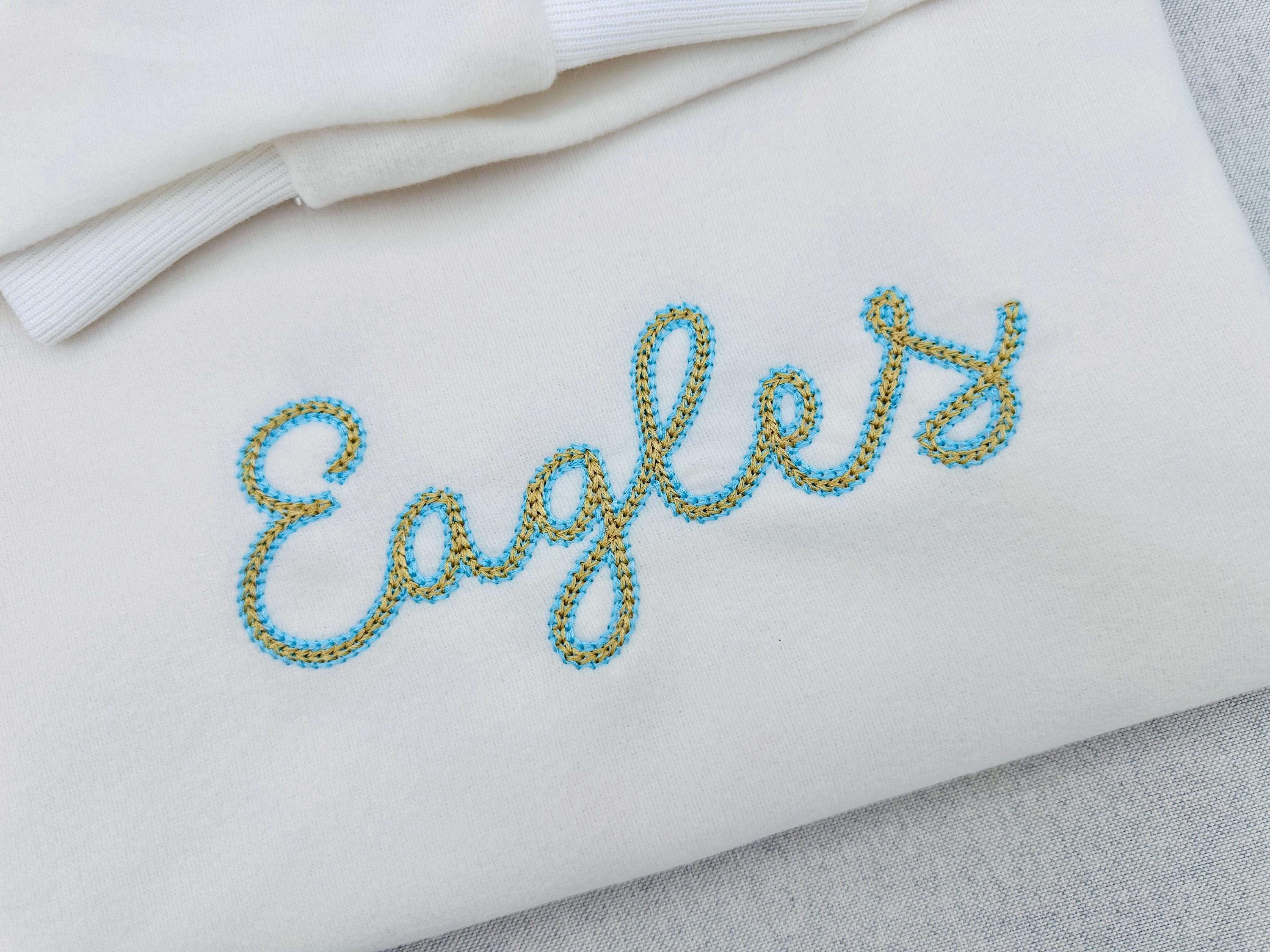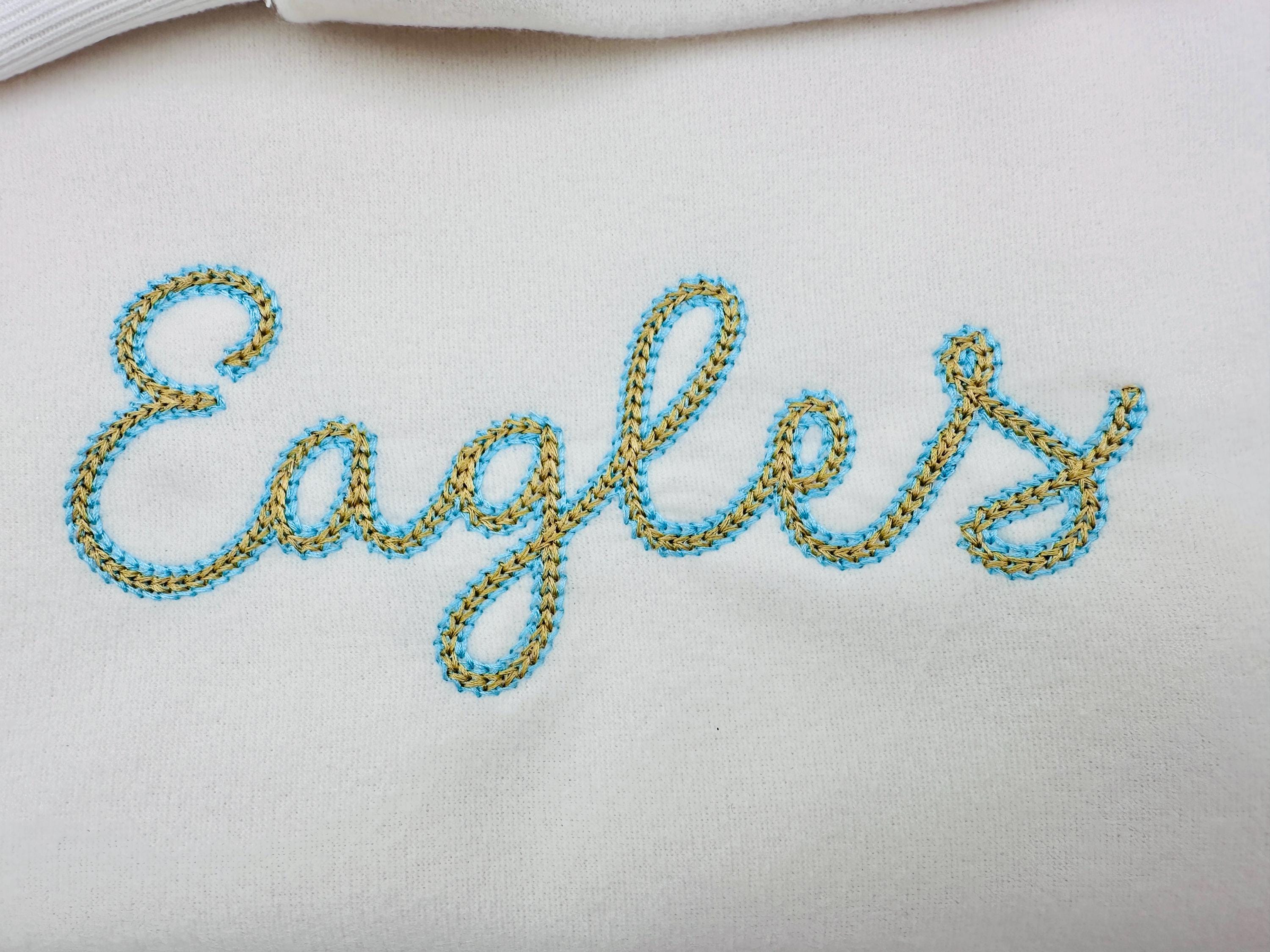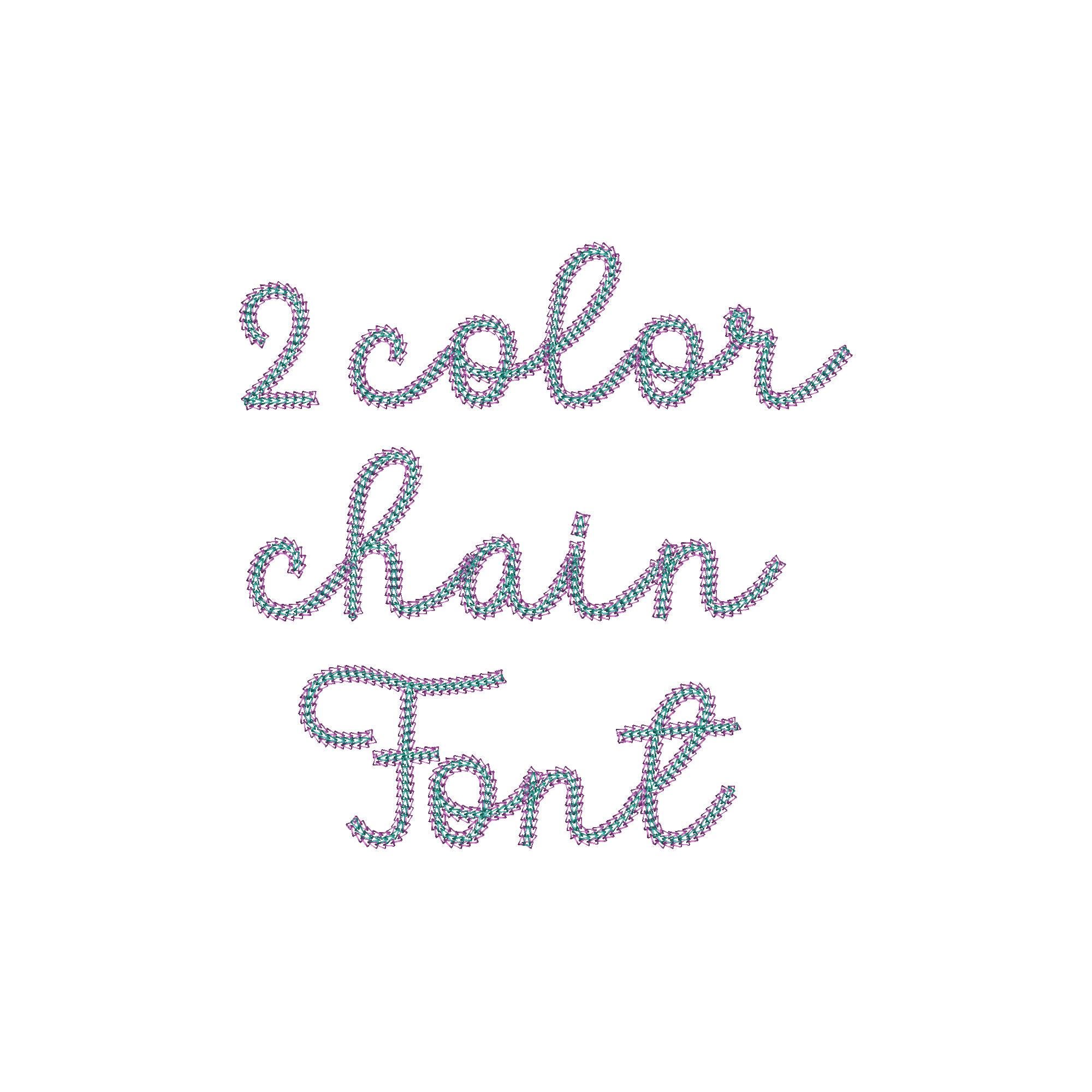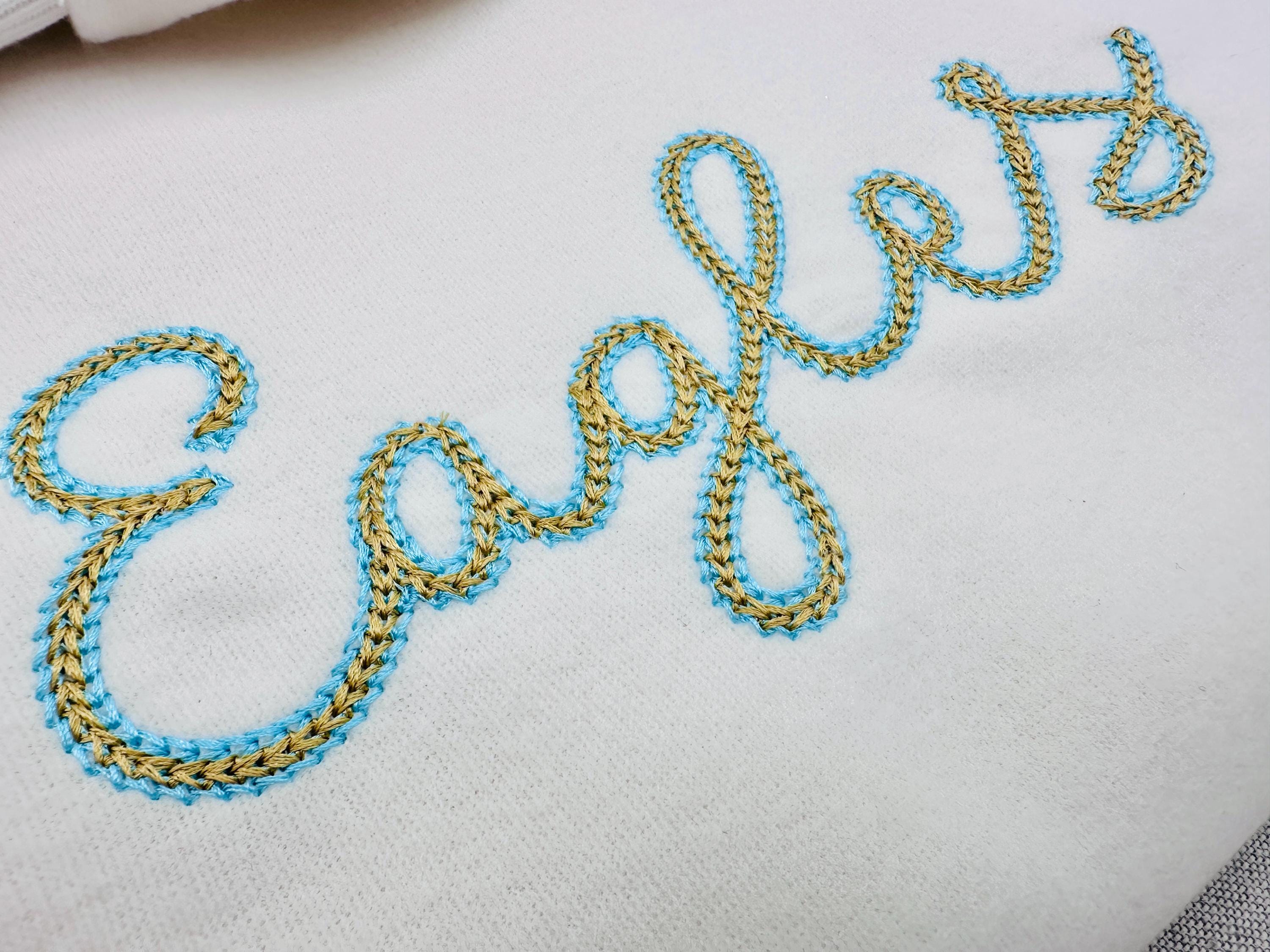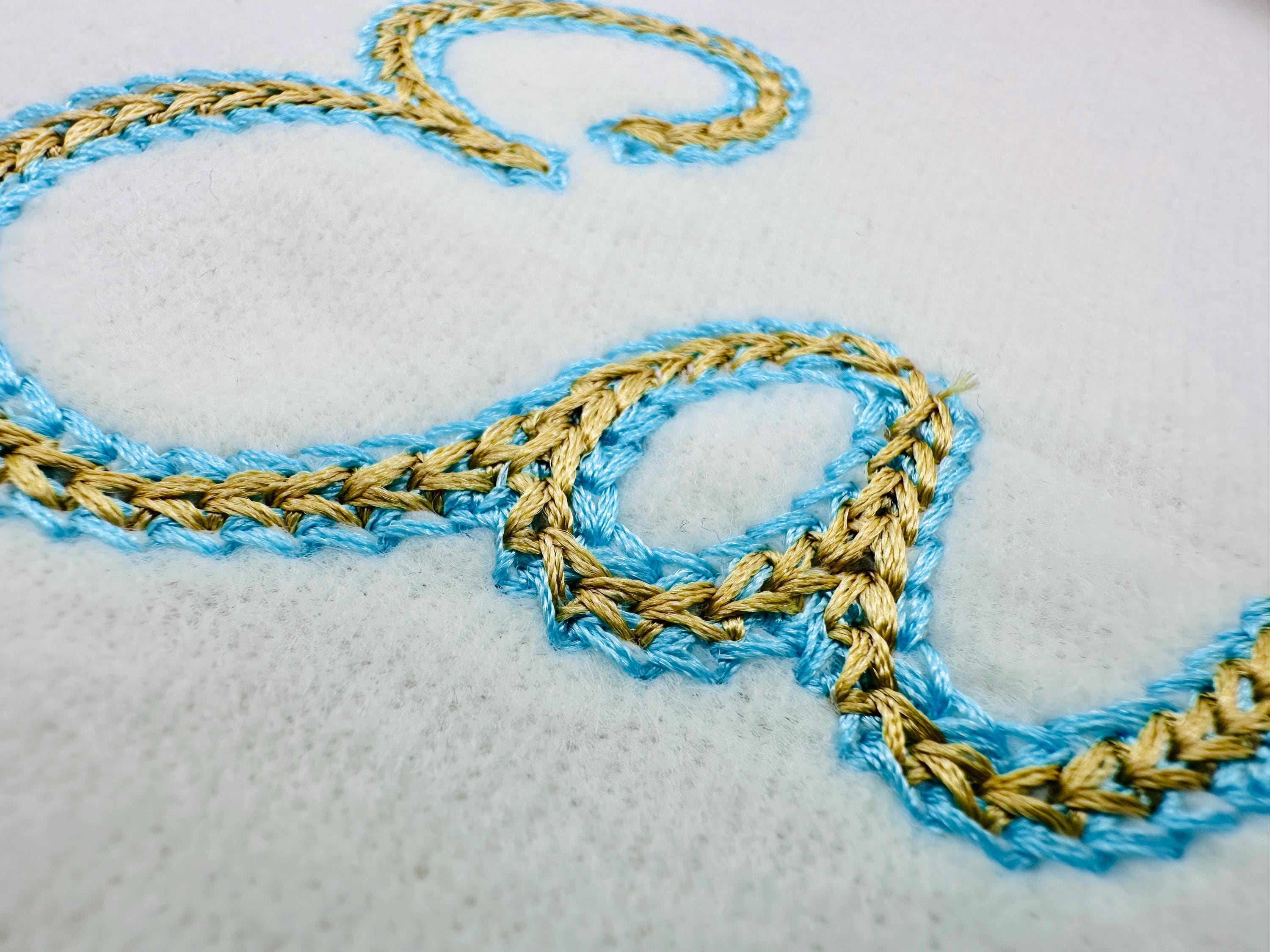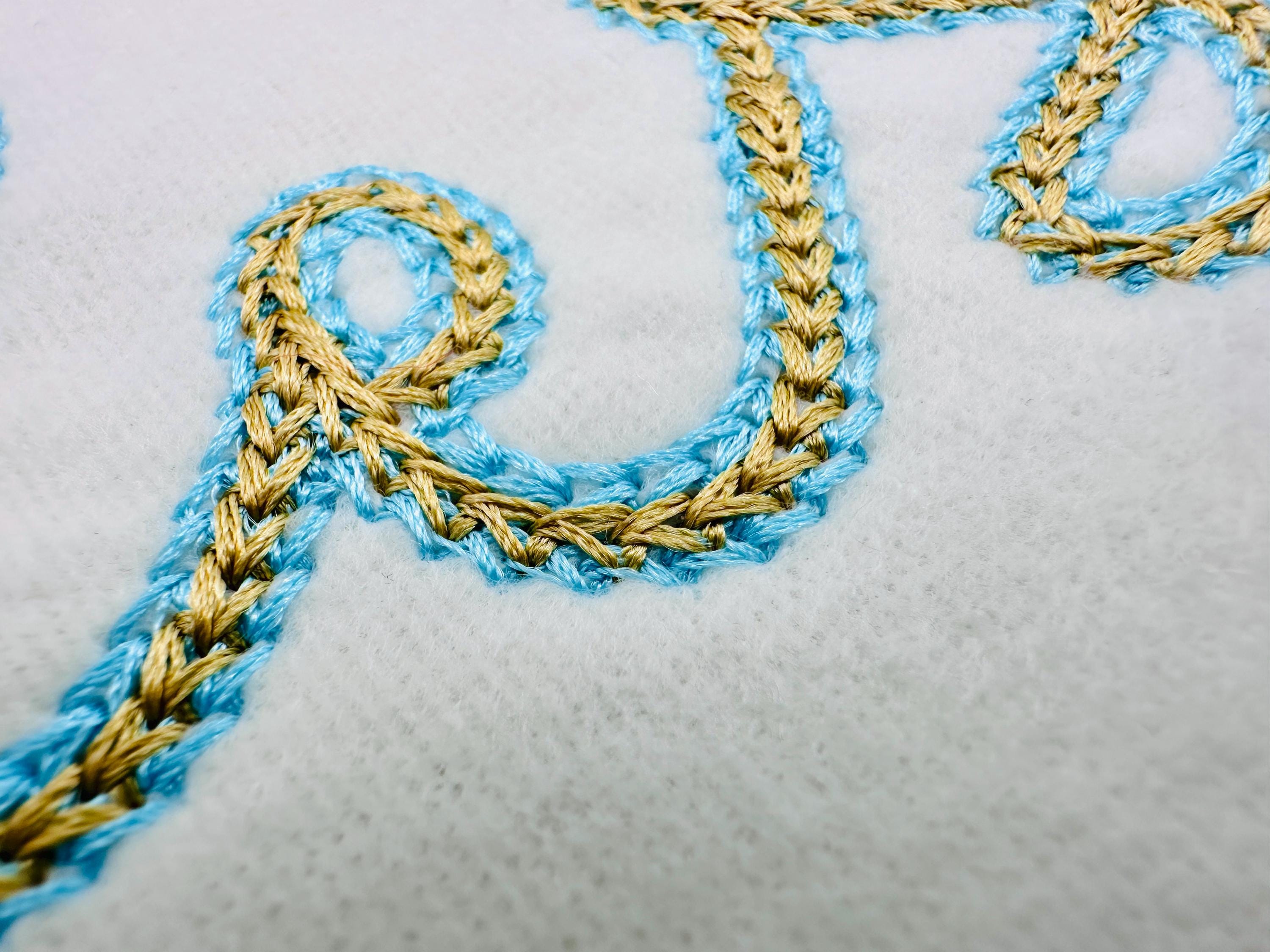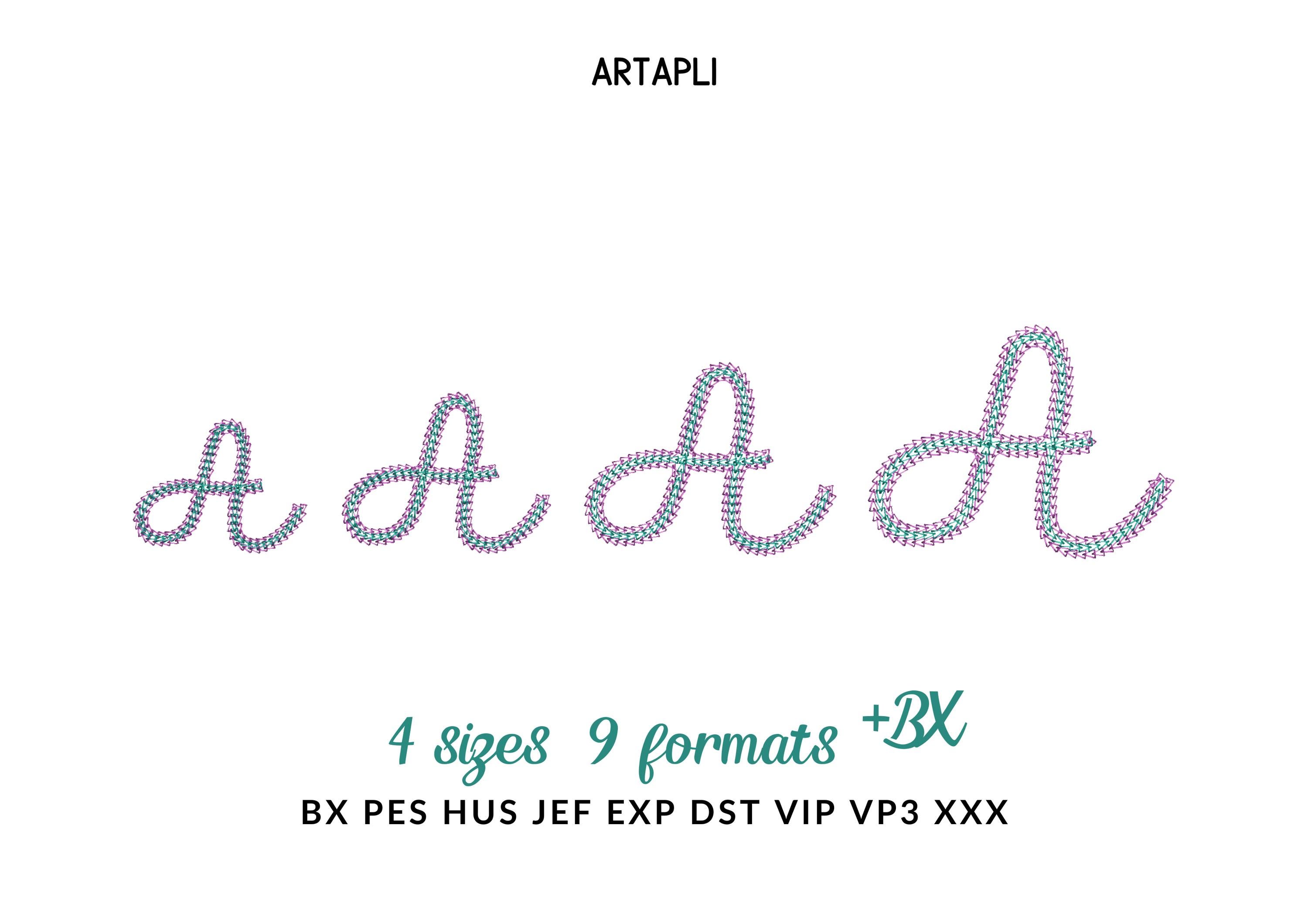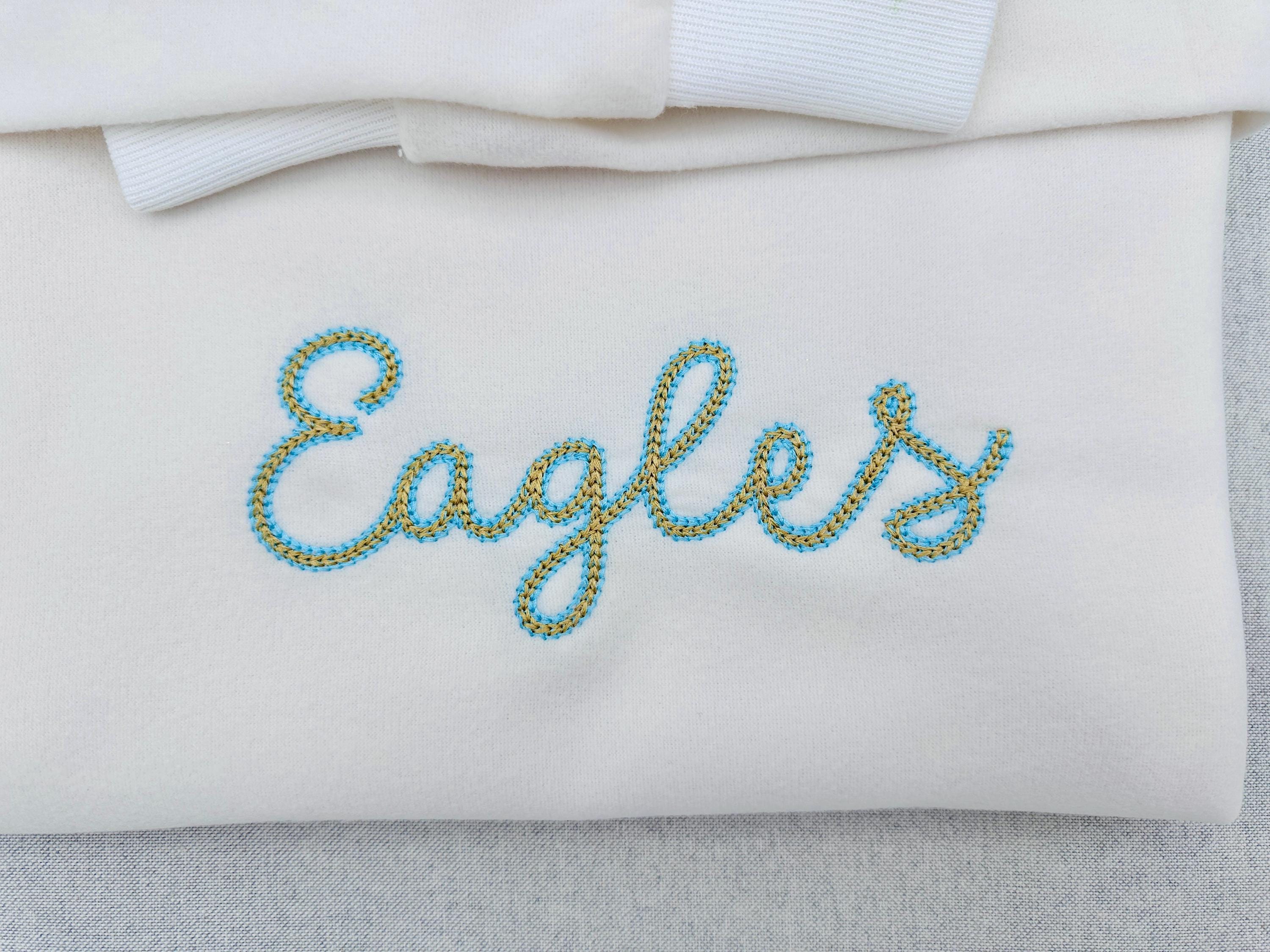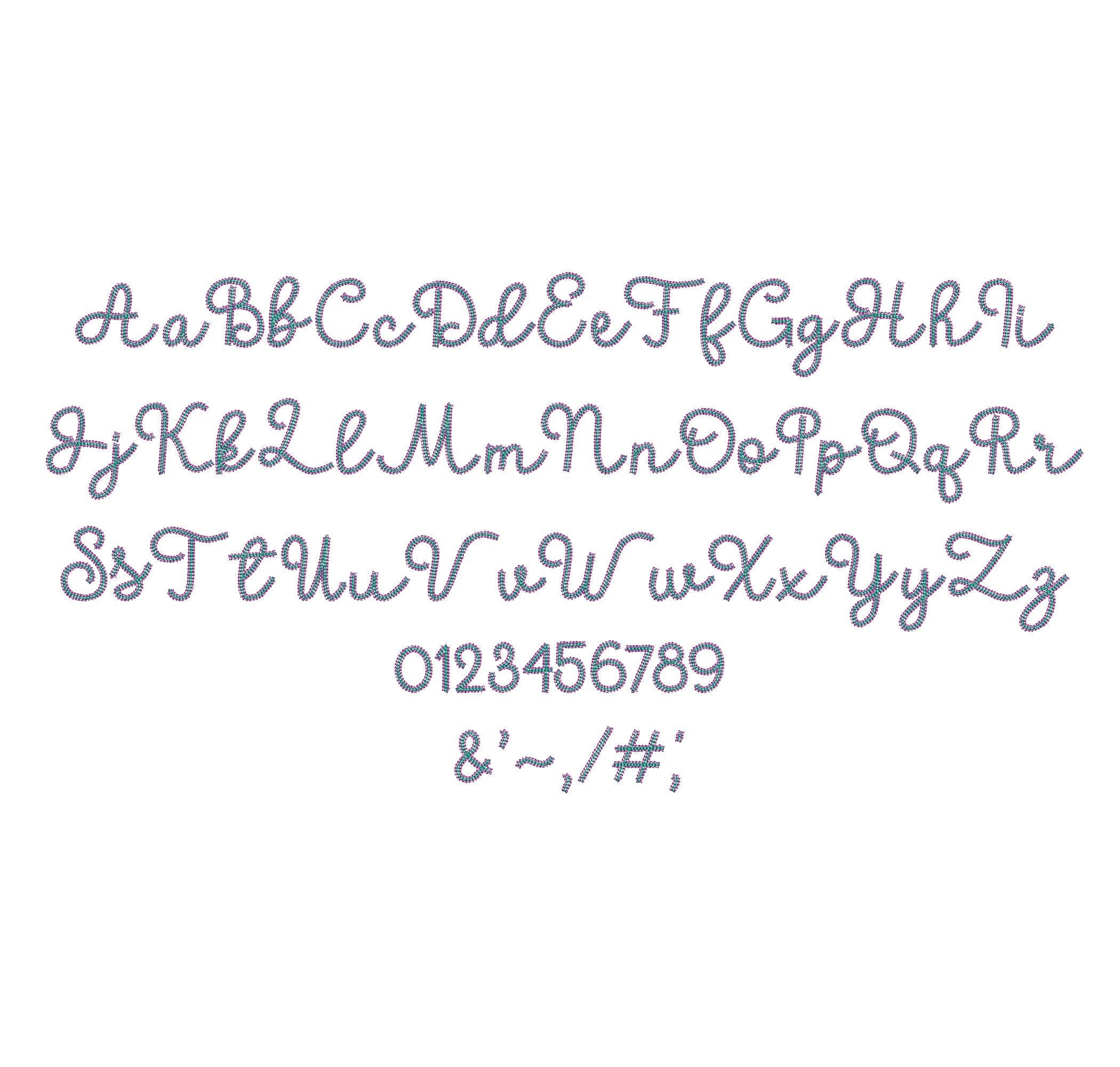
2 Color Chain FONT Buckeye light chain stitch outline handwritten Alphabet Monogram machine embroidery designs sizes 2.2 to 3.7 inch and BX included
Whole alphabet Aa-Zz uppercase and lowercase letters, numbers 0-9, and punctuation.